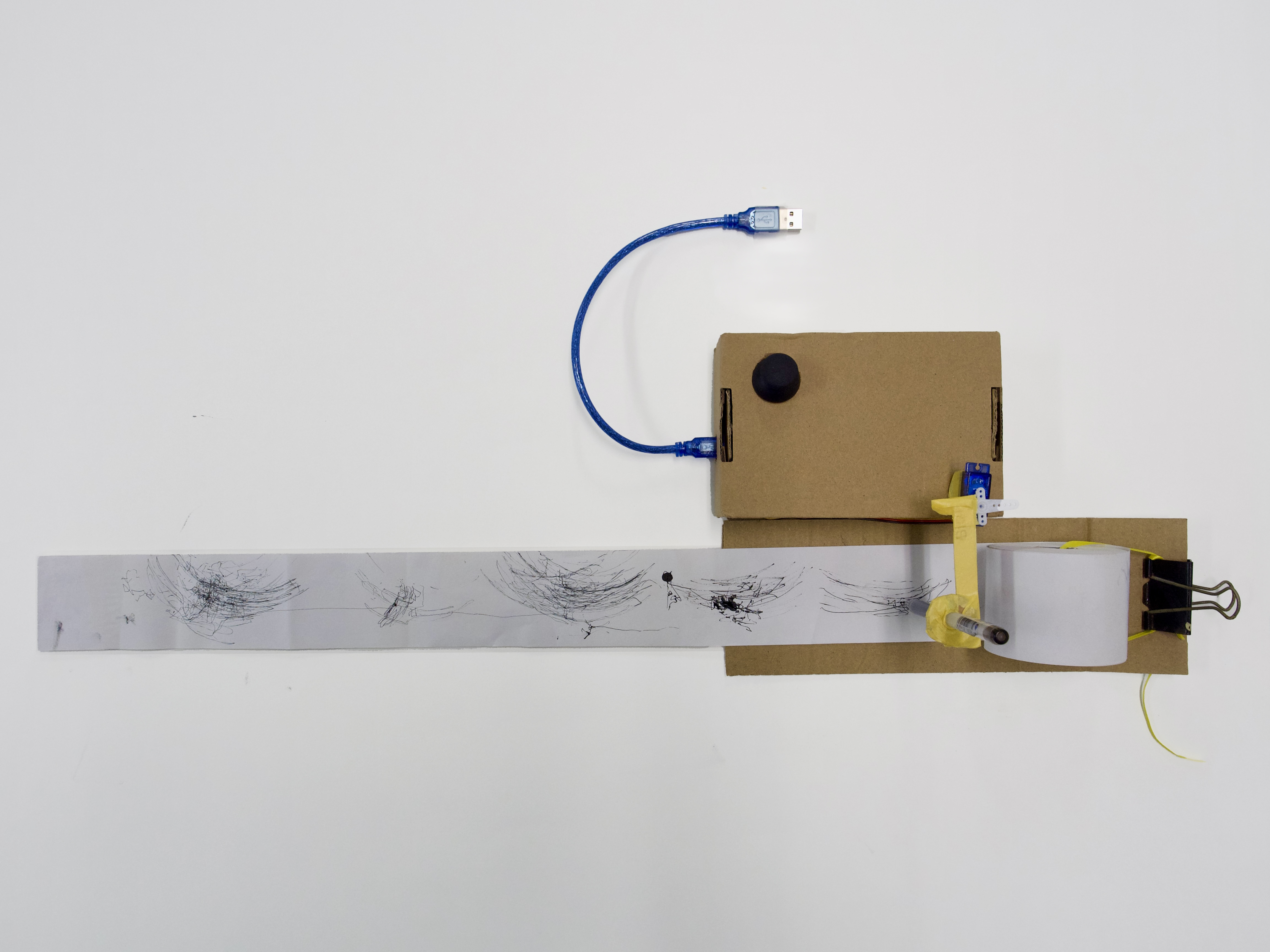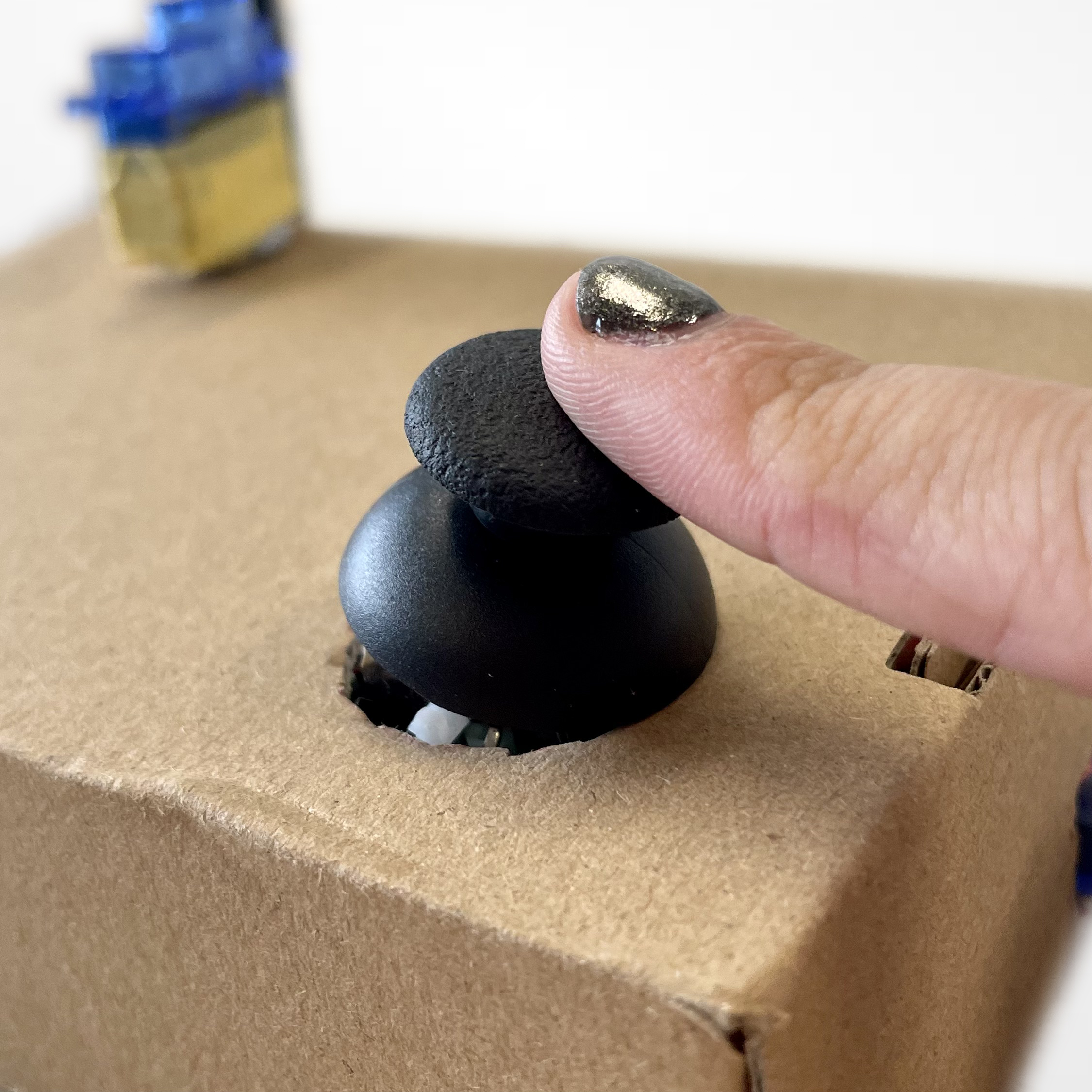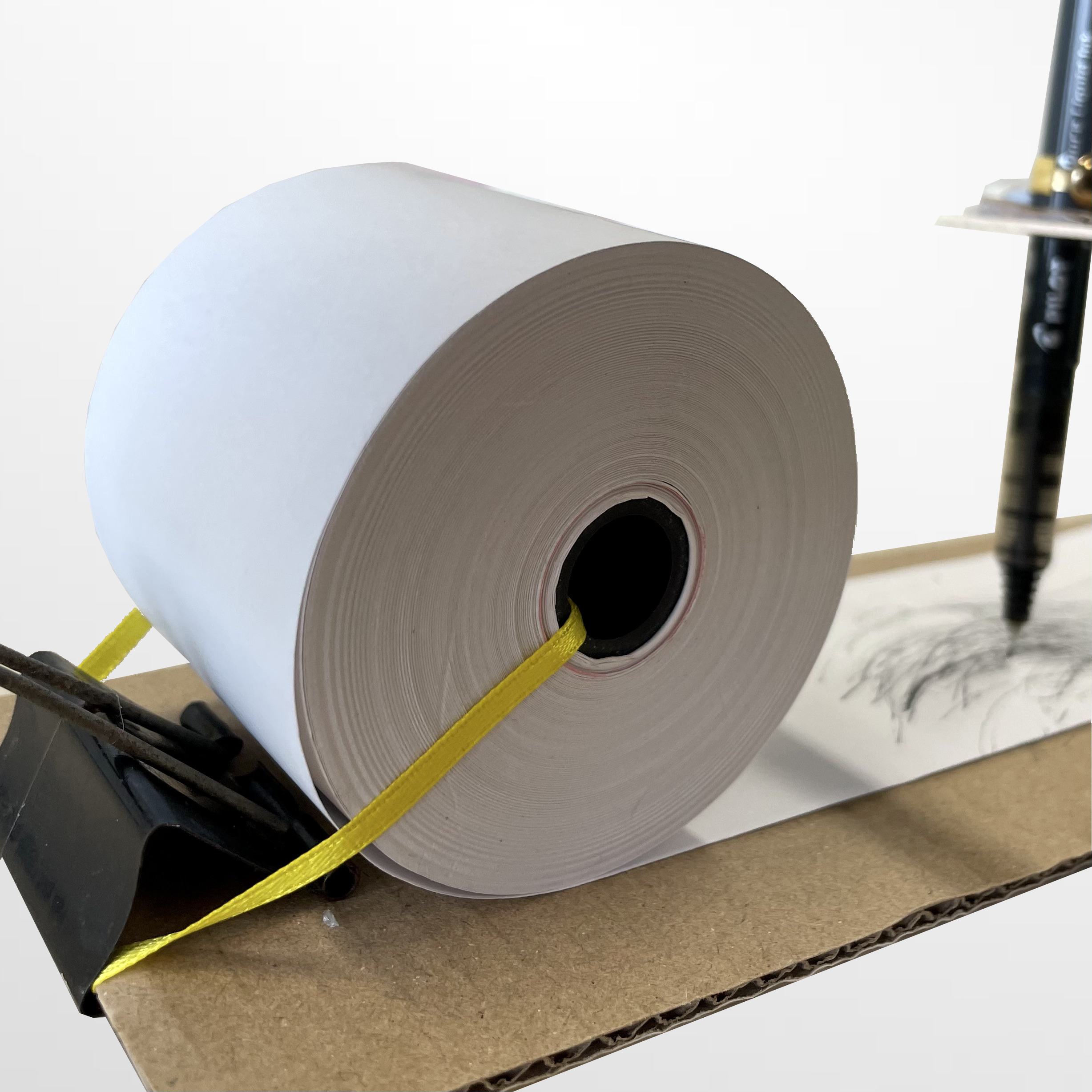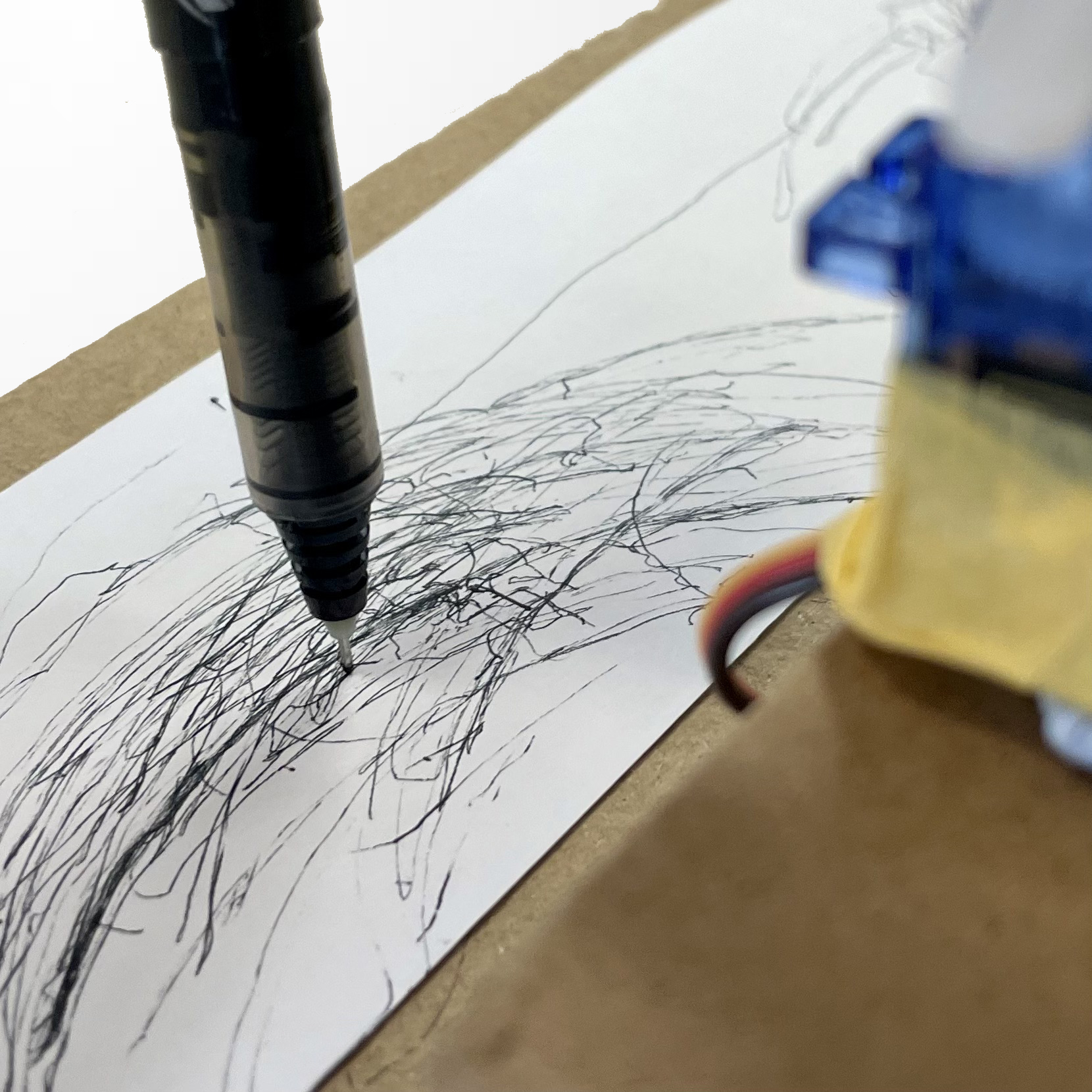
Prototype 1 explores what happens when drawing is done through a mechanism instead of directly by hand. A joystick controls a servo-mounted pen, so every movement is translated, delayed and slightly resisted by the machine. The rig makes the mediation visible: the motor overshoots, jitters, and sometimes drags behind my intention.
With this setup, my hand never touches the paper directly. Every small nudge on the joystick is
converted into a motor movement, which then drags the pen across the page. The delay and friction in
this chain means the line is always slightly “late” to my intention. I started to see the drawing as a
record of both my micro-adjustments and the servo’s behaviour, rather than a pure output of my hand.
This experiment helps me frame the machine as an active partner in the gesture. The line on paper
carries traces of human hesitation, mechanical inertia and code-defined limits all at once, which
becomes important when I compare it with more direct and bodily forms of mark-making.